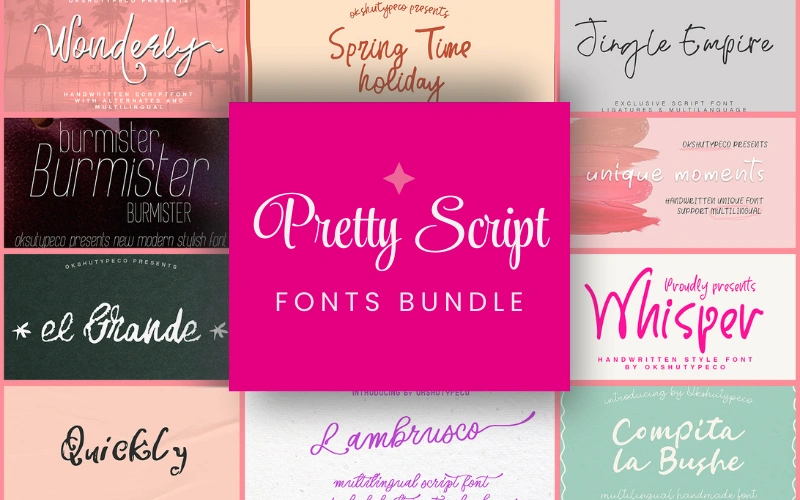
Fonts can make—or break—your design. This bundle gives your projects personality with a curated collection of pretty, hand-lettered styles designed for branding, invitations, logos, social media, packaging, and more.
This pack includes 12 high-quality fonts (handwritten scripts plus one sans serif) in web and desktop formats. Each font features smooth strokes and useful typographic extras—ligatures, alternates, multilingual support—so your work looks unique and professional.
• 12 font families (11 handwritten/script styles + 1 sans serif)
• Features: alternates, ligatures, multilingual support where noted
Fonts (with notable features)
• Burmister — Sans serif
• SpringTimeHoliday — Ligatures, multilingual support
• Whisper — Multilingual support
• El Grande — Ligatures, multilingual support
• Unique Moments — Multilingual support
• Wonderly — Alternates, multilingual support
• Jingle Empire — Ligatures, multilingual support
• Quickly — Handmade style
• Compita La Buche — Ligatures, multilingual support
• Listing — Ligatures, multilingual support
• Rahim Itegez — Multilingual support
• Lambrusco — Alternates, multilingual support